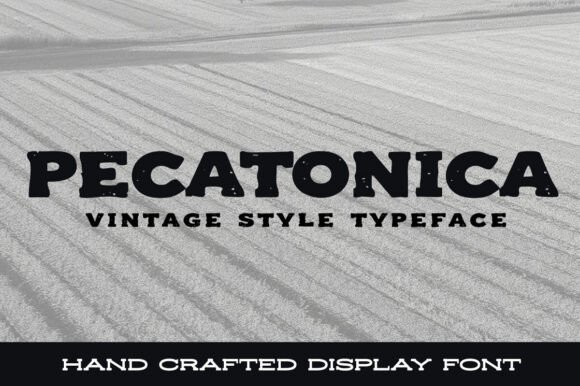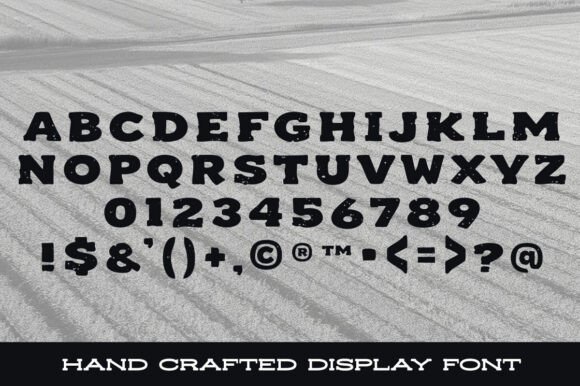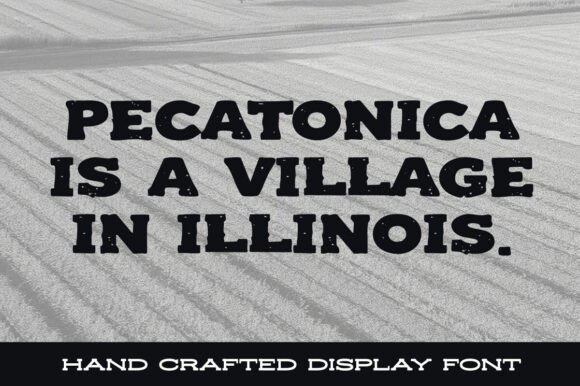
Pecatonica Font: Bold Distressed Display Font for Vintage Logo Design
About the Pecatonica Font
The Pecatonica Font offers a perfect balance of form and function for your design needs. Pecatonica is a bold and rugged distressed font with a raw, weathered character. Inspired by the grit of old signage, worn-out woodblock prints, and vintage industrial lettering, this font brings an authentic roughness to any design. With its thick strokes and textured edges, Pecatonica stands strong in headlines, posters, logos, and branding that demand a bold, timeworn aesthetic. Whether you’re crafting a rustic design, a Western-inspired look, or an aged, handcrafted feel, Pecatonica delivers the perfect dose of grit and attitude.
Pecatonica Font Usage Examples
Pecatonica Font Example